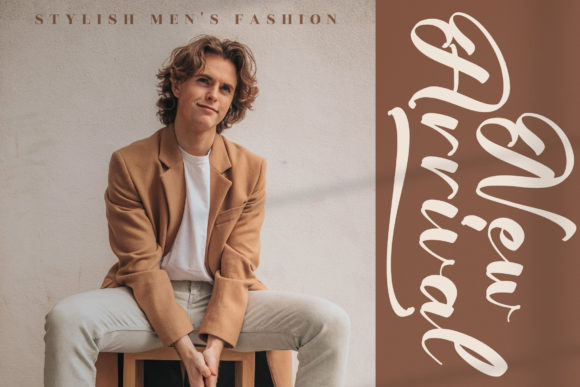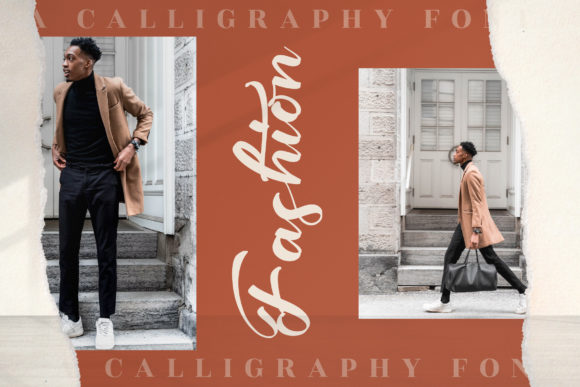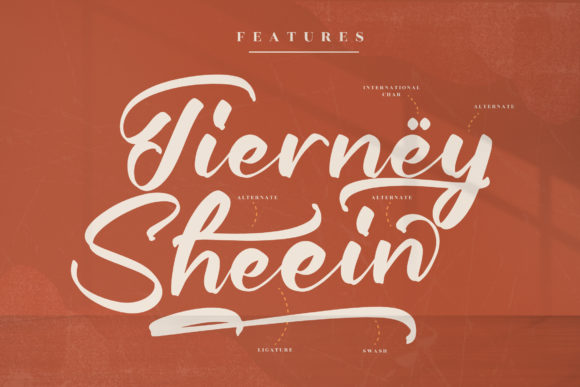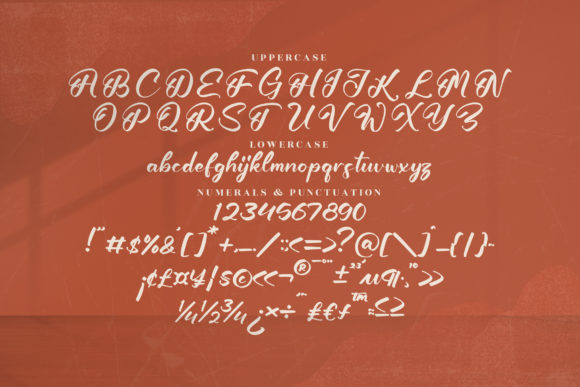
About Krekatau Font
Krekatau is a stylish and paint brushed script font. It is suitable for any projects such as: logos, branding projects, label, photography, watermark, special events, and all your other lovely projects that need a beautiful script taste. This font is PUA encoded which means you can access all of the glyphs and swashes with ease!